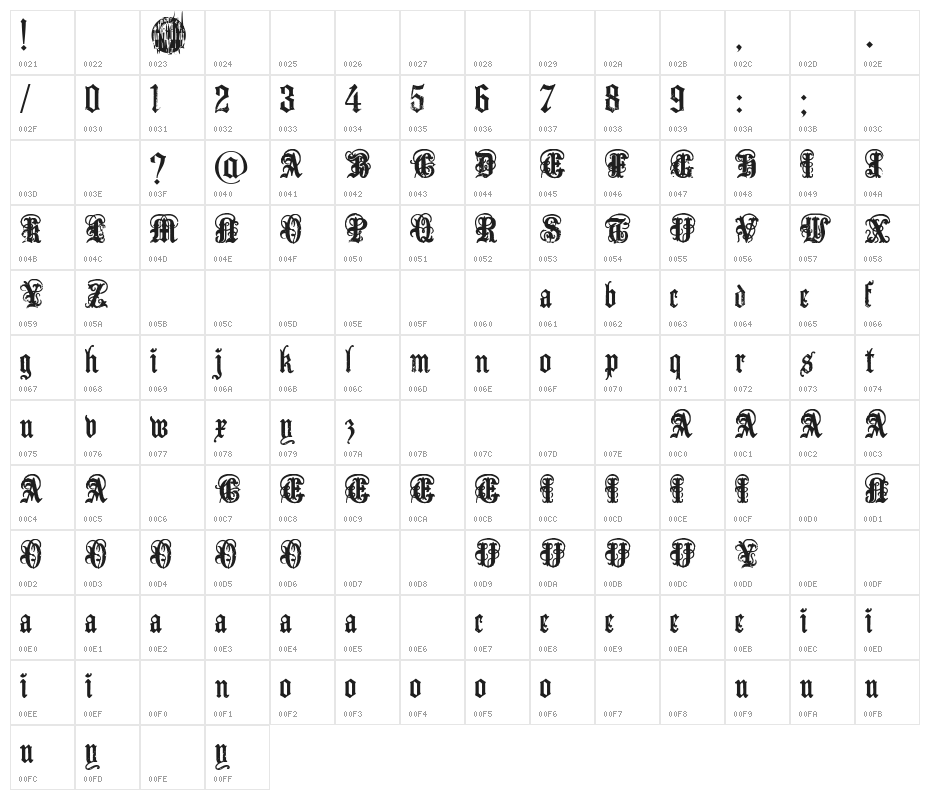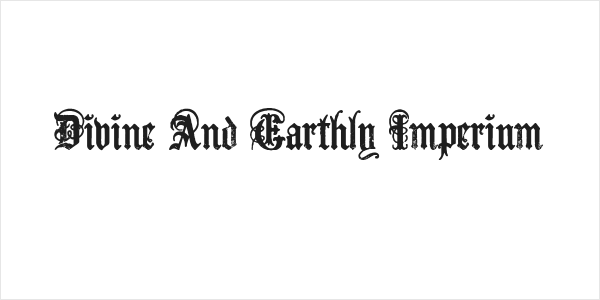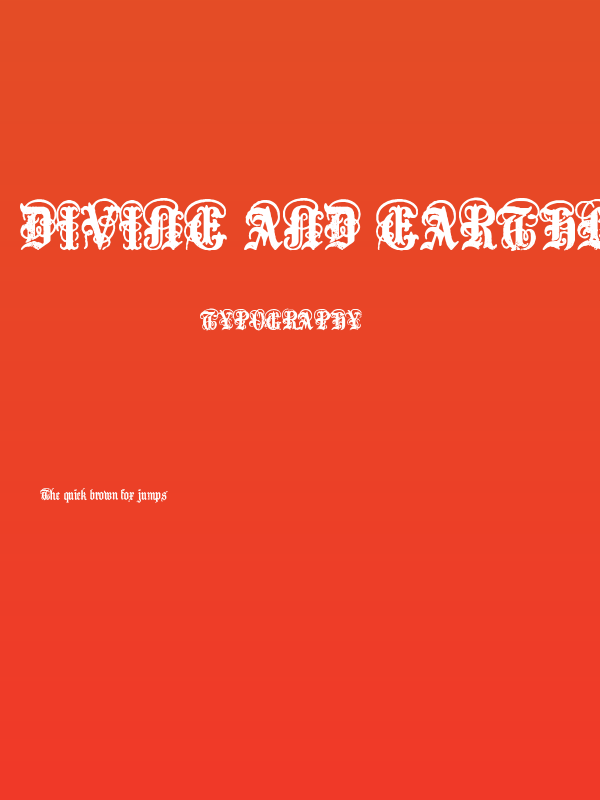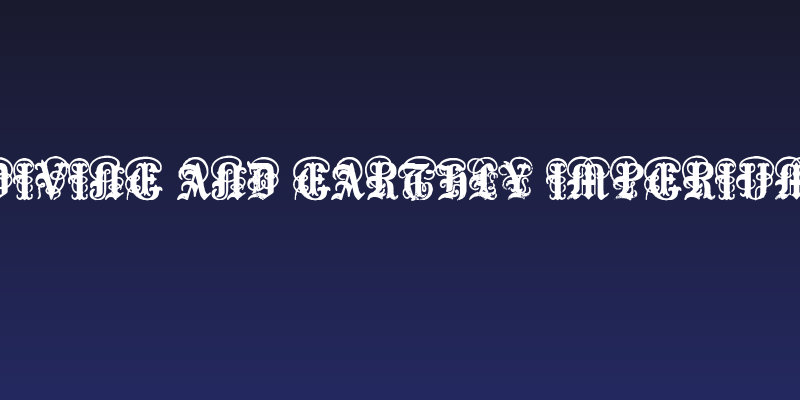
Divine And Earthly Imperium Font
Divine And Earthly Imperium Description
This font is a striking example of Blackletter style, characterized by its intricate and ornate design. The letters are bold and heavily stylized, with dramatic flourishes and sharp angles that evoke a sense of historical elegance. The uppercase letters are particularly elaborate, featuring decorative elements that enhance their gothic appearance. The lowercase letters maintain the same level of detail, ensuring consistency throughout the typeface. The numbers and special characters are equally ornate, making this font ideal for projects that require a touch of medieval or vintage flair. The overall aesthetic is both bold and decorative, making it suitable for impactful headlines or artistic designs.
| Use Case | Headlines, Logos, Decorative purposes |
| Proposed Projects | Ideal for historical themed designs, gothic posters, book covers, and branding that requires a vintage or medieval touch. |